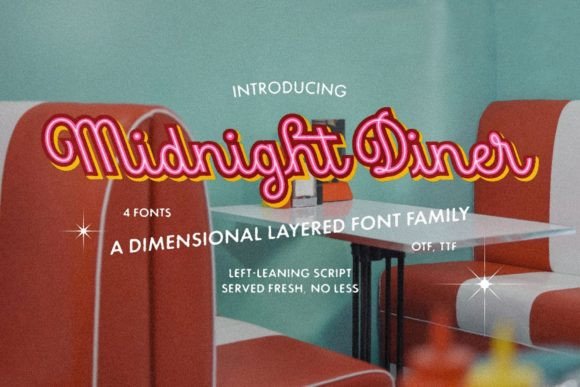
Midnight Diner Font: A Versatile and Stylish Script Font Family
The Midnight Diner Font is a multi-layered dimensional script font family that has been making waves in the design world. With its unique combination of thin, bold, outline, and shadow capabilities, this font family offers a wide range of creative possibilities. In this article, we’ll take a closer look at the Midnight Diner Font, its features, and how you can use it to elevate your design projects.
What Makes Midnight Diner Font Special?
The Midnight Diner Font is a left-leaning script font with a retro and elegant feel. Its unique slant gives it a distinctive look that sets it apart from other script fonts. The font family is delicately crafted with every little detail in mind, ensuring its ease and versatility when used. Whether you’re looking for a font for display graphics, logos, signages, packaging, lifestyle imagery, invitations, or more, the Midnight Diner Font is an excellent choice.
Experiment with Various Layer Combinations and Colors
One of the standout features of the Midnight Diner Font is its layering capabilities. With thin, bold, outline, and shadow options, you can experiment with various layer combinations to create unique and eye-catching designs. The font’s multi-layered dimensional script font family allows you to play with different colors, textures, and effects, giving you endless creative possibilities.
Imagine being able to create a bold and striking logo with a thin outline and a shadow effect, or a elegant and sophisticated invitation with a bold font and a subtle texture. The Midnight Diner Font makes it all possible, and its ease of use ensures that you can achieve professional-looking results without spending hours designing from scratch.
Endless Design Possibilities
The Midnight Diner Font is an incredibly versatile font family that can be used in a wide range of design projects. Here are some ideas to get you started:
- Display graphics: Use the Midnight Diner Font to create eye-catching display graphics for billboards, posters, and social media ads.
- Logos: Create a unique and memorable logo for your business or brand with the Midnight Diner Font.
- Signages: Use the font to create eye-catching signages for restaurants, cafes, and shops.
- Packaging: Add a touch of elegance and sophistication to your product packaging with the Midnight Diner Font.
- Lifestyle imagery: Use the font to create beautiful and inspiring lifestyle imagery for social media, blogs, and websites.
- Invitations: Create elegant and sophisticated invitations for weddings, parties, and special events.
Easy to Use and Customize
The Midnight Diner Font is designed to be easy to use and customize, even for those who are new to design. The font family comes with a range of features that make it simple to get started, including:
- Customizable layers: The font’s layering capabilities make it easy to customize and experiment with different designs.
Tips and Tricks for Getting the Most Out of Midnight Diner Font
Here are some tips and tricks to help you get the most out of the Midnight Diner Font:
- Experiment with different layer combinations: Don’t be afraid to try out different layer combinations to create unique and eye-catching designs.
- Play with colors and textures: The Midnight Diner Font looks great with a range of colors and textures, so don’t be afraid to experiment and find the perfect combination for your design.
- Use it for display graphics: The font’s bold and striking appearance makes it perfect for display graphics, such as billboards and posters.
- Pair it with other fonts: The Midnight Diner Font pairs well with other fonts, so don’t be afraid to experiment with different font combinations to create a unique look.
The Midnight Diner Font is a versatile and stylish script font family that offers a wide range of creative possibilities. With its unique combination of thin, bold, outline, and shadow capabilities, this font family is perfect for display graphics, logos, signages, packaging, lifestyle imagery, invitations, and more. Its ease of use and customization options make it accessible to designers of all levels, and its retro and elegant feel ensures that your designs will stand out from the crowd.